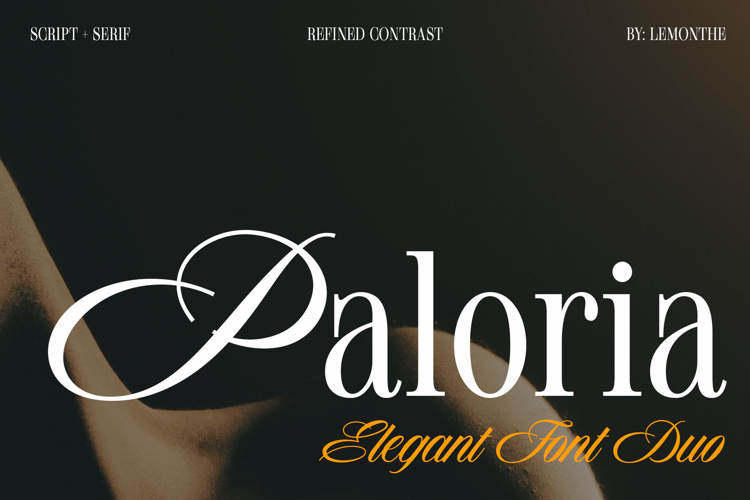
Paloria is an elegant font duo that brings together a graceful script and a refined serif to create a balanced and timeless typographic expression. The flowing script adds a sense of softness and sophistication, while the serif provides clarity, structure, and strong visual presence. Designed to complement each other seamlessly, this duo is ideal for branding, editorial layouts, invitations, packaging, logos, and other creative projects that require a harmonious contrast between elegance and readability.